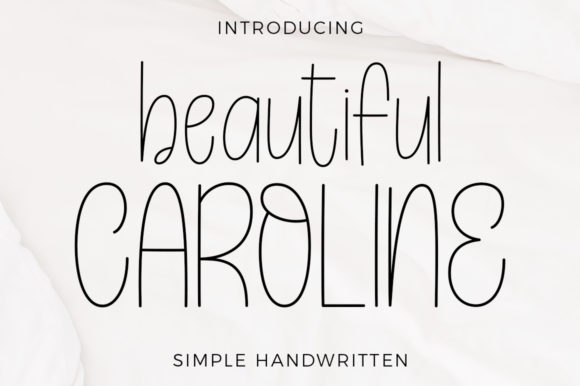
Prepare yourself to fall head over heels for Beautiful Caroline, a script font that will make your heart skip a beat! Crafted with the utmost care by the talented team at Typesthetic Studio, this font exudes charm and elegance in equal measure.
Picture this: a handwritten note penned with the flowing strokes of Beautiful Caroline, conveying your heartfelt sentiments to a loved one. The font's delicate curves and whimsical flourishes add a touch of warmth and authenticity to your words, making them feel like a heartfelt embrace.
But Beautiful Caroline's versatility extends far beyond the confines of love letters. Its charming personality shines through in countless other applications, from wedding invitations and save-the-dates to social media posts and marketing materials. With its ability to transform ordinary text into captivating works of art, Beautiful Caroline has become a beloved choice for creatives and discerning individuals alike.
So, whether you're a hopeless romantic seeking to express your affection in an unforgettable way or a creative professional seeking to elevate your designs with a touch of whimsy, Beautiful Caroline is the font you've been searching for. Its timeless appeal and versatility make it a must-have in any font collection, ready to add a sprinkle of charm to every project you undertake.
Step into the world of Beautiful Caroline and let its enchanting strokes ignite your imagination today!